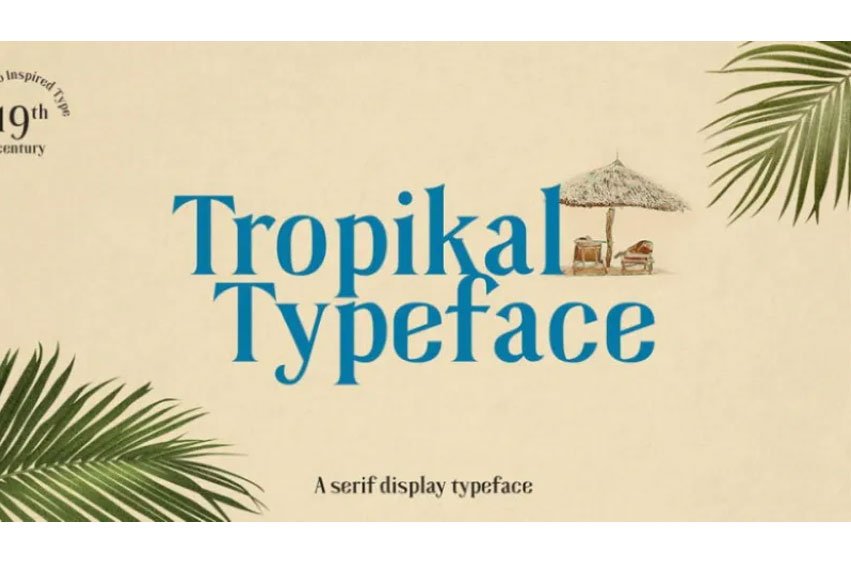
Tropikal Typeface Font is a very trendy, classical font with a lot of personality. The genesis of the project was the interest in the possibility of Philippine type in the contemporary world.
Also, this new/contemporary serif typeface, the base of this typeface comes from the 19th century Philippine newspaper designs, banknotes, and packaging designs.